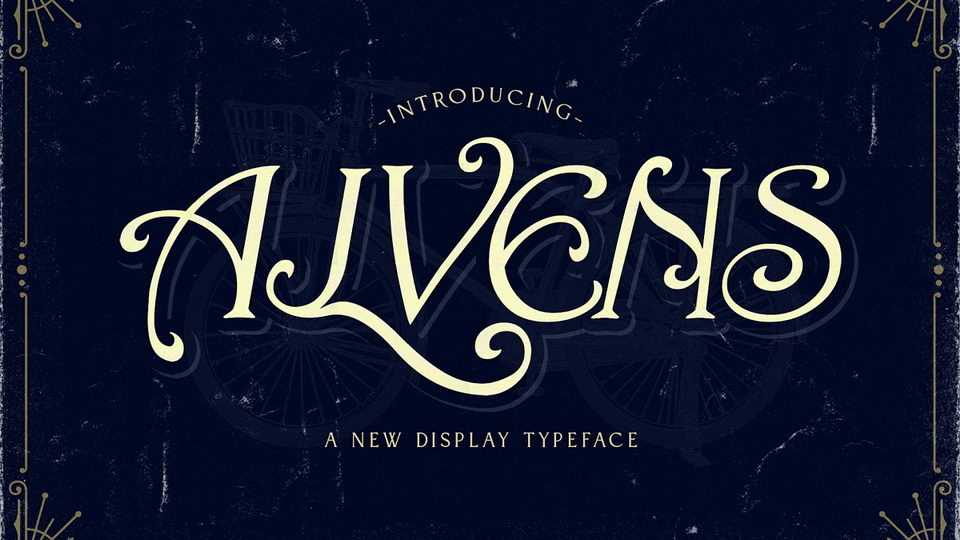
Download Alvens font, a beautiful and stylish display typeface. Alvens features unique stylistic alternates that will take your projects to the next level.